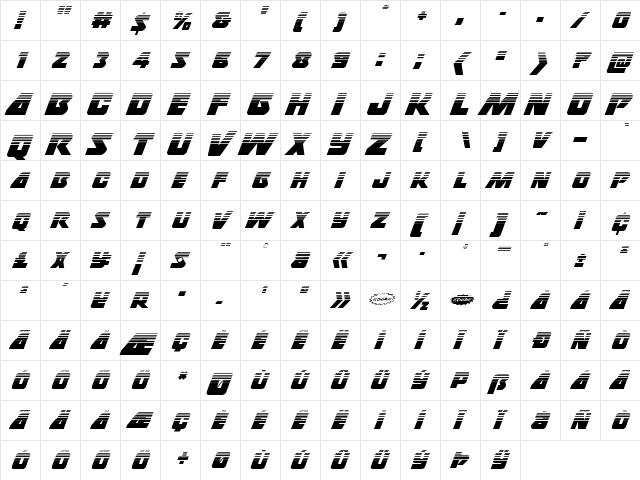
Thunderstrike Halftone Regular
Design Context for Thunderstrike Halftone Typeface
Thunderstrike Halftone is a composed and adaptable typeface that performs quietly and consistently across a wide range of design contexts.